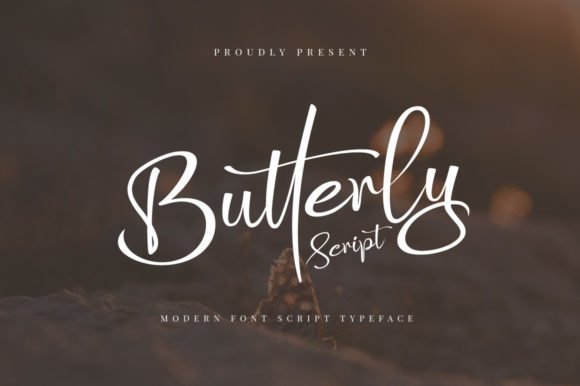
Adding a Touch of Elegance: Unleashing the Magic of Butterly Script Font
Have you ever sat at your desk, staring at a blank canvas, waiting for the perfect idea to strike? That’s exactly what happened to me last week, and it was then that I fell in love with the beautiful Butterly Script Font. Its delicate, flowing lines transported me to a world of creativity and possibility.
This elegant handwritten font is more than just a pretty face – it’s a game-changer for designers. With its well-balanced characters and versatility, the Butterly Script Font can elevate even the most mundane designs into something truly special. Whether you’re a seasoned pro or just starting out, this font is sure to inspire your next creative project.
Butterly Script Font Key Features
- Unique Characteristics: Features elegant, cursive script letterforms with subtle flair and fluid connections between letters
Butterly Script Font Review
First off, I have to say that the whimsical, flowing lines of Butterly Script Font ✨ make it a great choice for any design project that needs a touch of elegance. The script font is perfect for adding a sense of sophistication to any text, from wedding invitations to product labels.
Another great aspect of Butterly Script Font is its versatility ✨. It comes in a variety of styles, from formal to casual, making it suitable for a wide range of applications. The font also includes a range of ligatures, which can add an extra layer of personality to your designs.
However, I do have to mention a few limitations with Butterly Script Font. For one, the font may be difficult to read at small sizes ⚠️, which could be a problem for designs that need to be viewed from a distance. Additionally, the font may not be suitable for body text ⚠️, as it can be quite ornate and may be difficult to read for extended periods of time.
Overall, I would say that Butterly Script Font is a great choice for any design project that needs a touch of elegance and sophistication. Just be sure to use it in moderation, and pair it with a clear and readable font for body text.
- Whimsical, flowing lines
- Versatile and suitable for a wide range of applications
- Includes a range of ligatures
- May be difficult to read at small sizes
- Not suitable for body text
Practical Application Guide for Butterfly Script Font
For a more elegant look, pair the Butterfly Script font with a clean sans-serif font like Open Sans or Lato. Use the font for titles, headings, and short paragraphs to create visual interest. Experiment with different font sizes and colors to create a cohesive design.
The Butterfly Script font is ideal for:
- Book covers and publishing